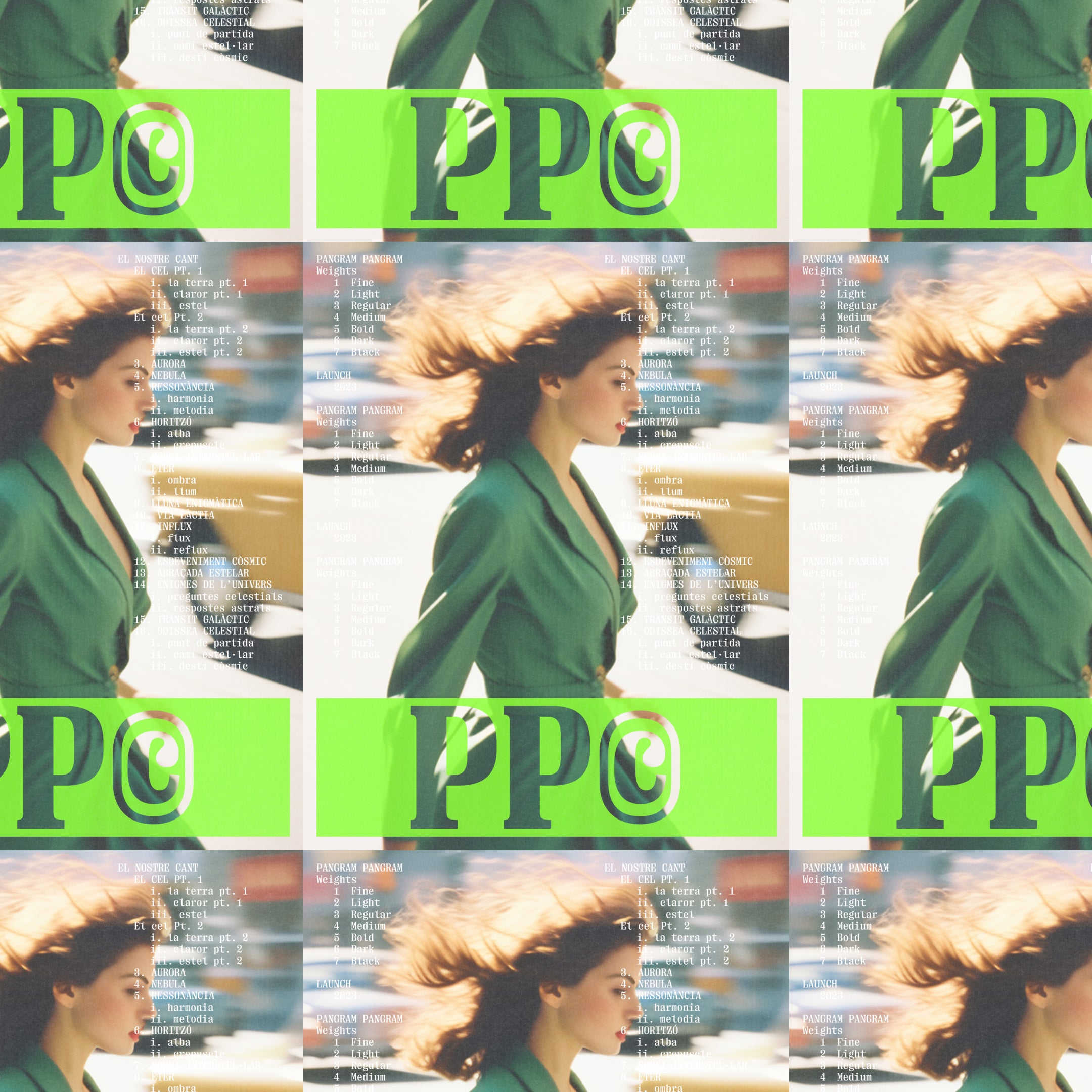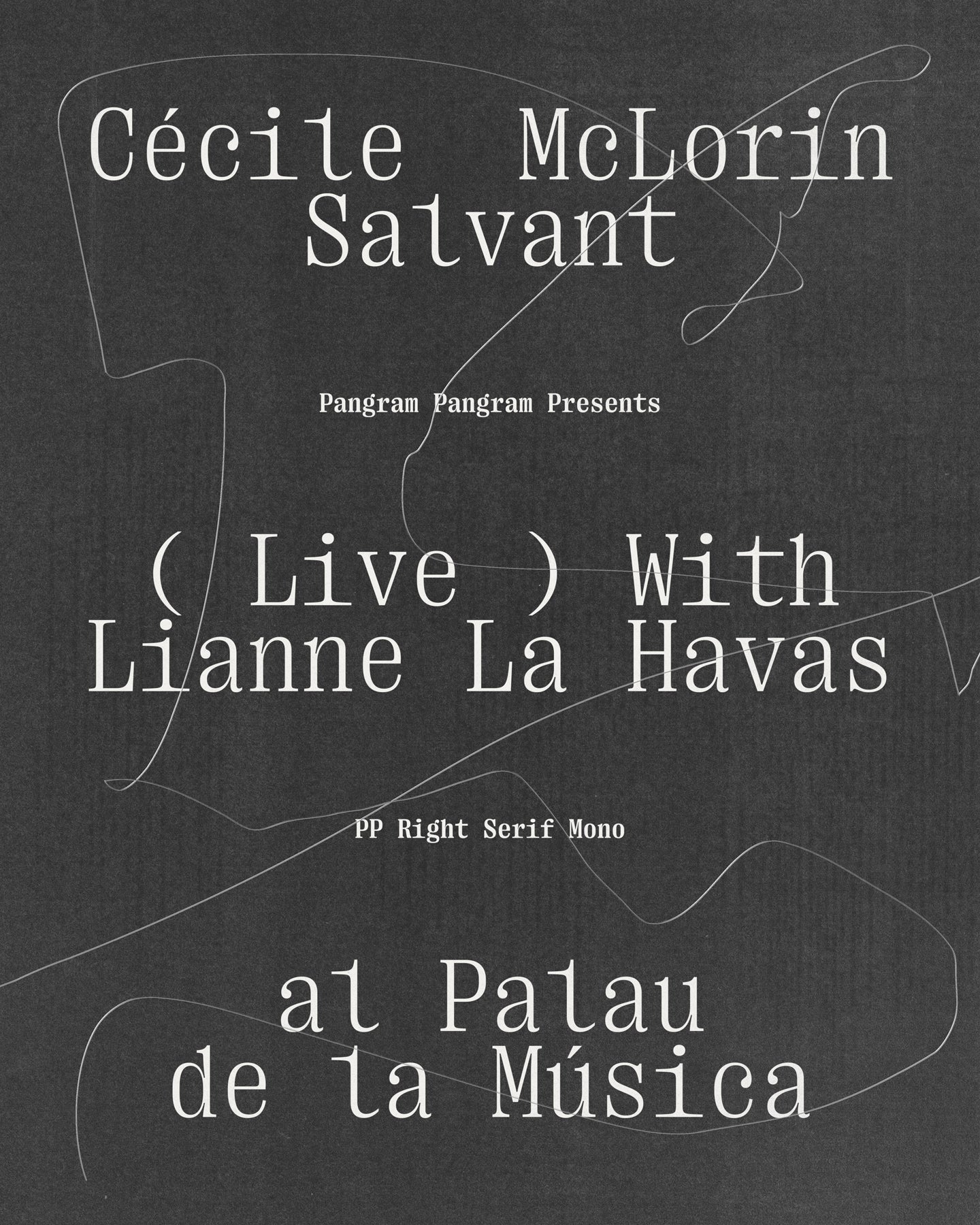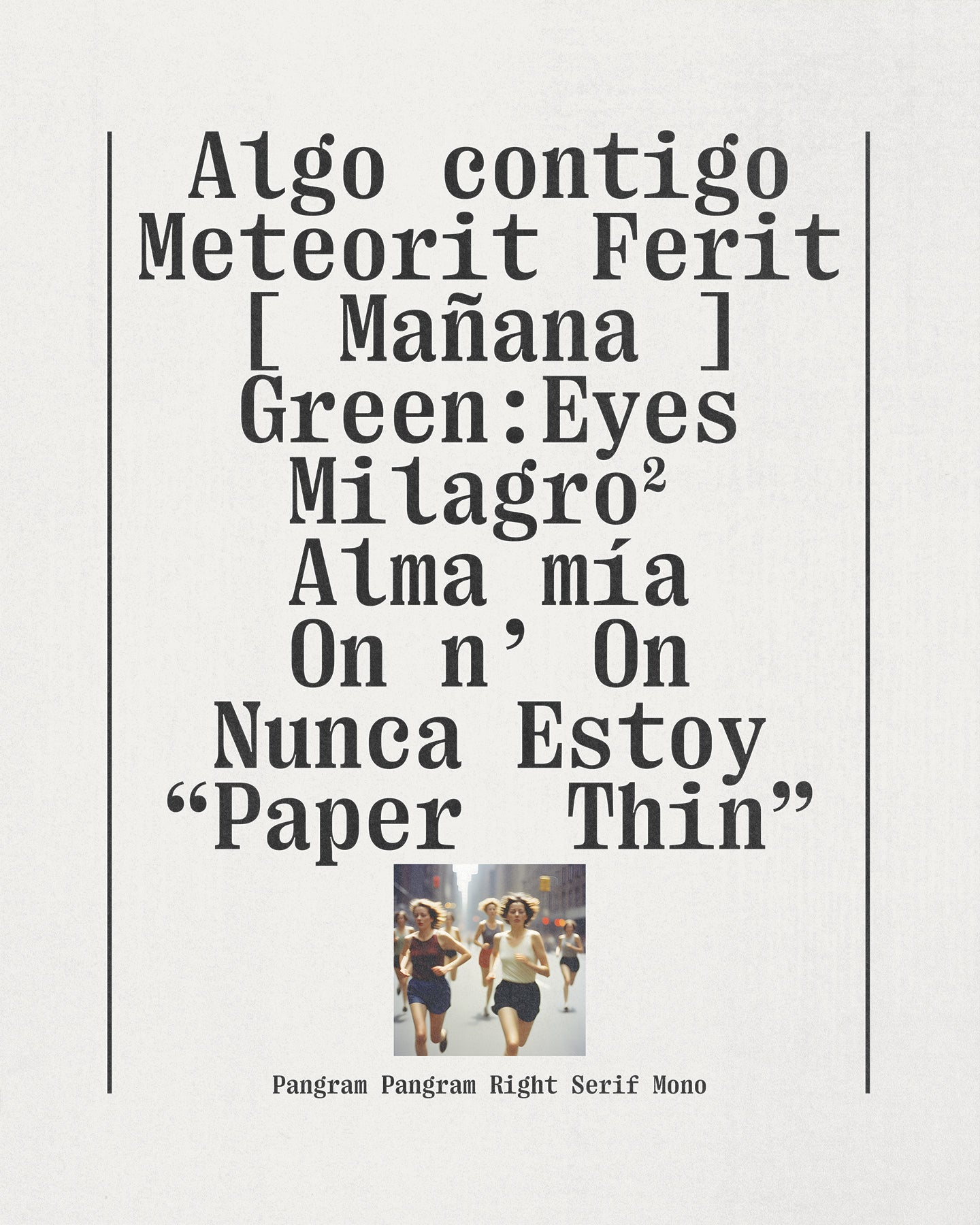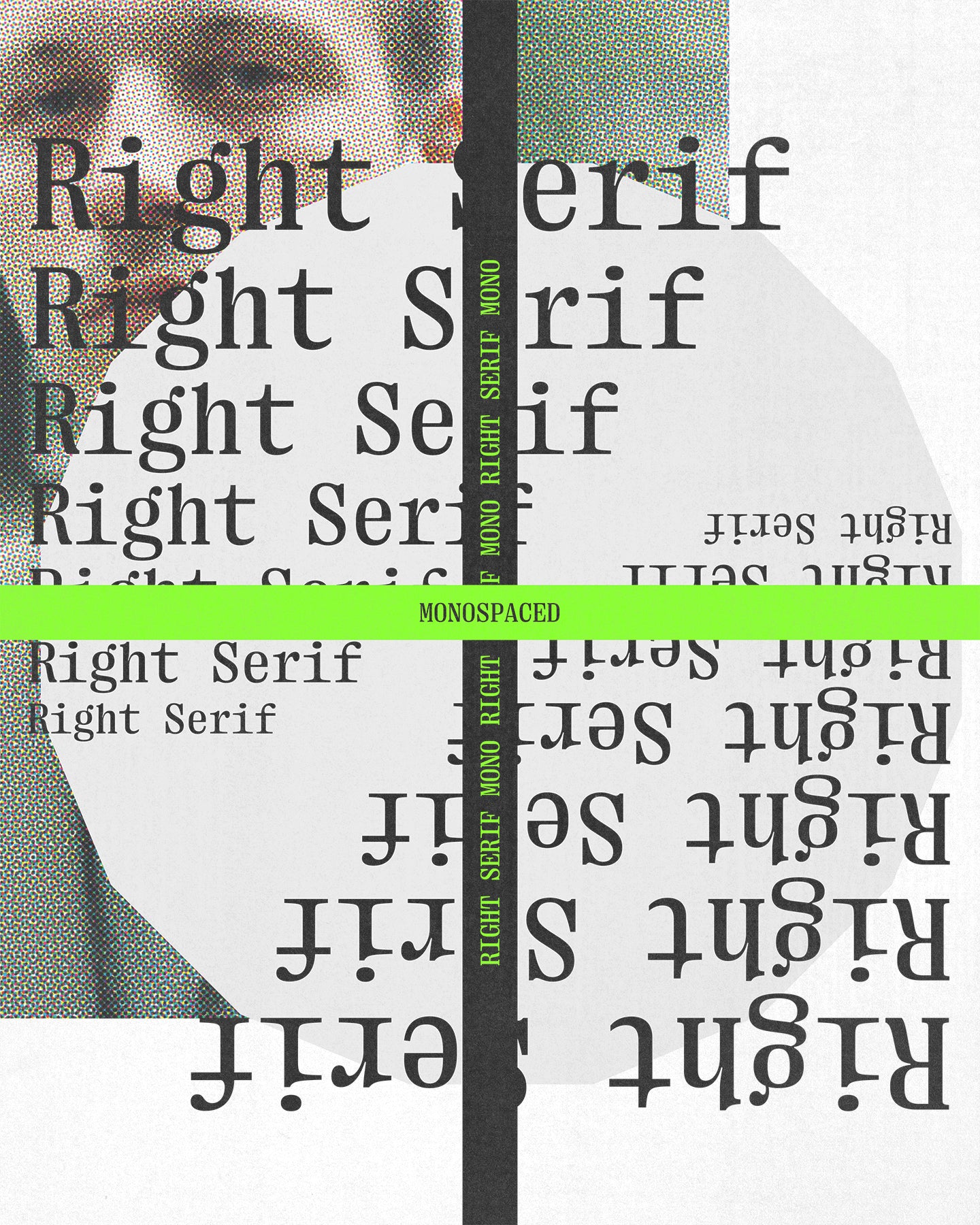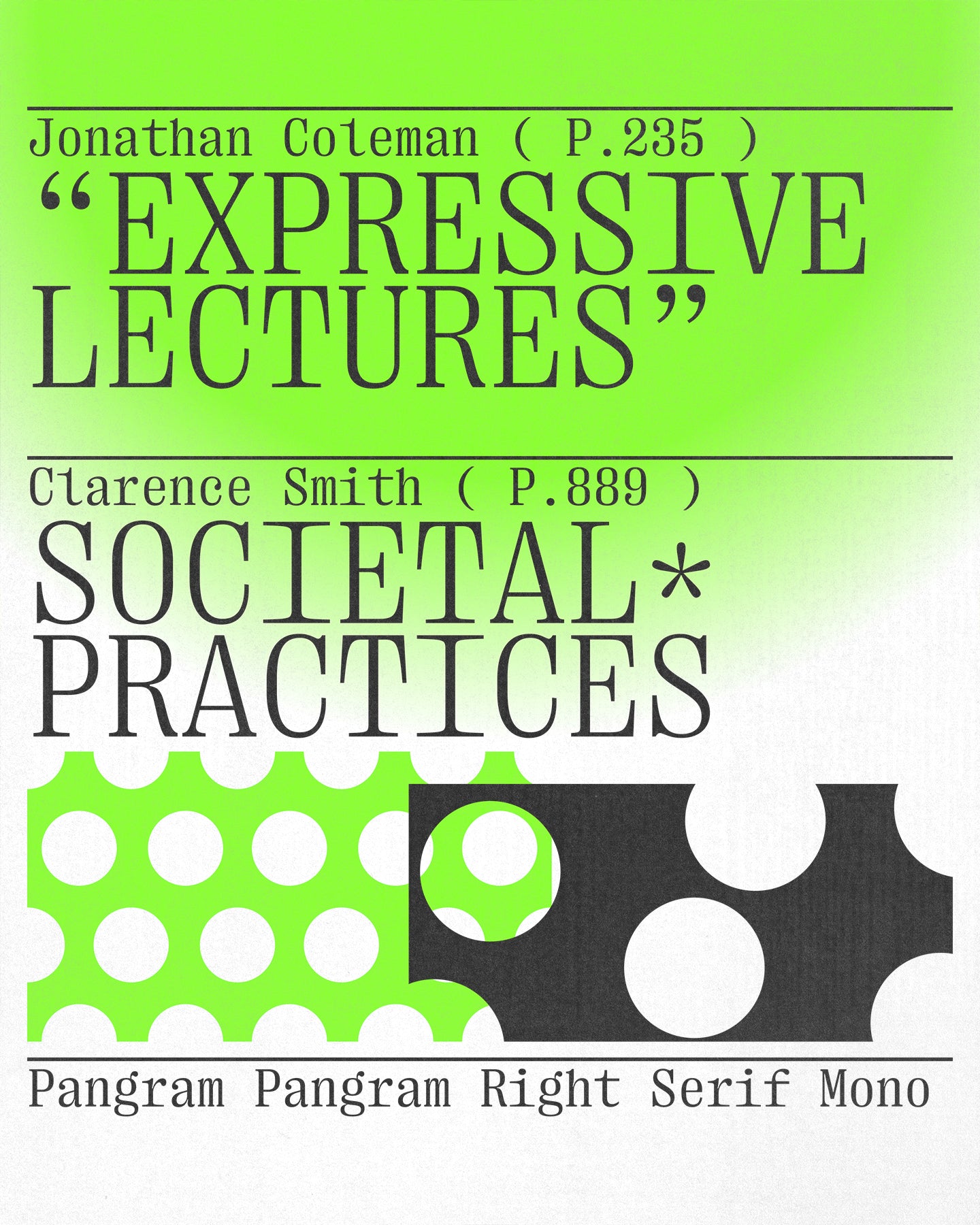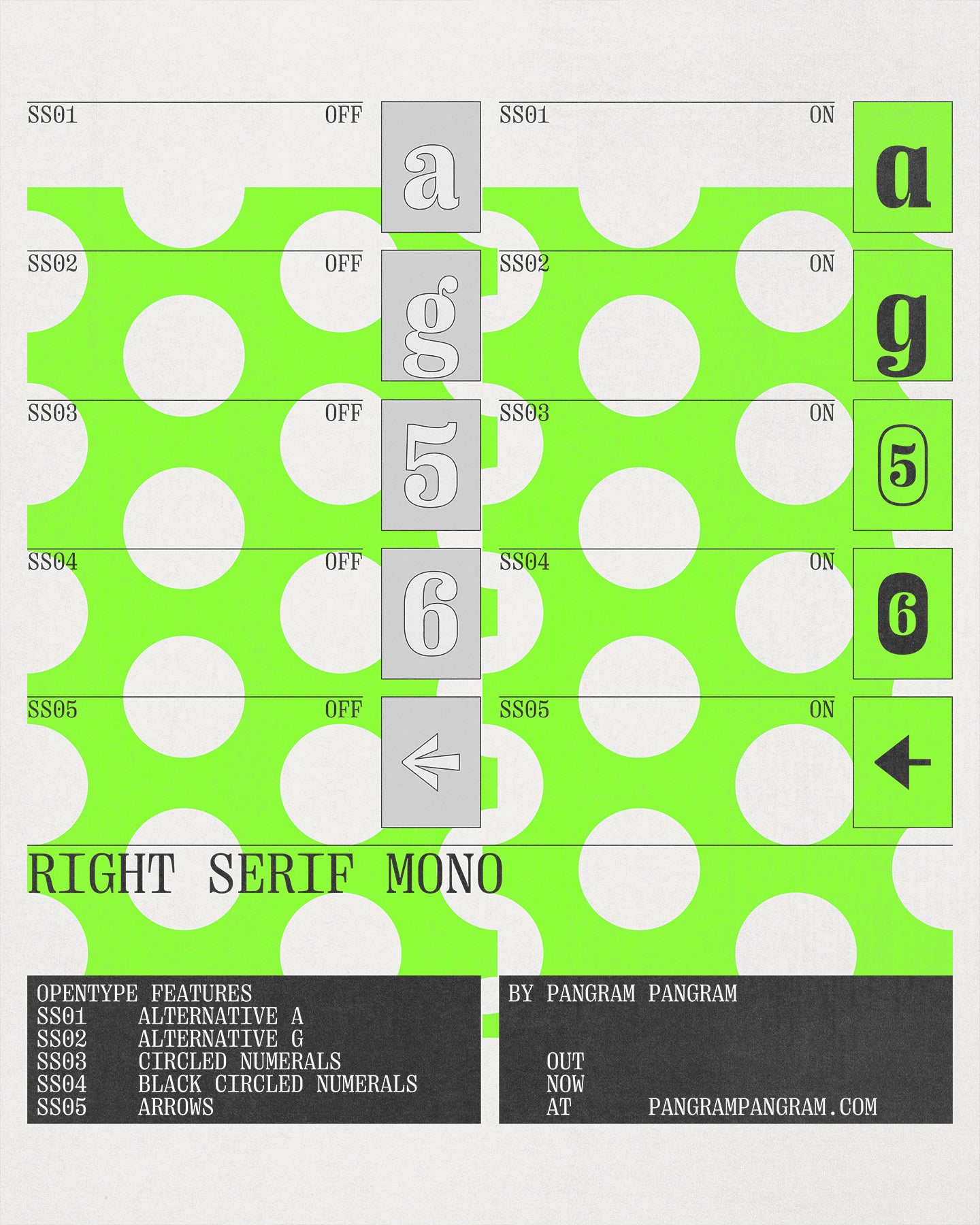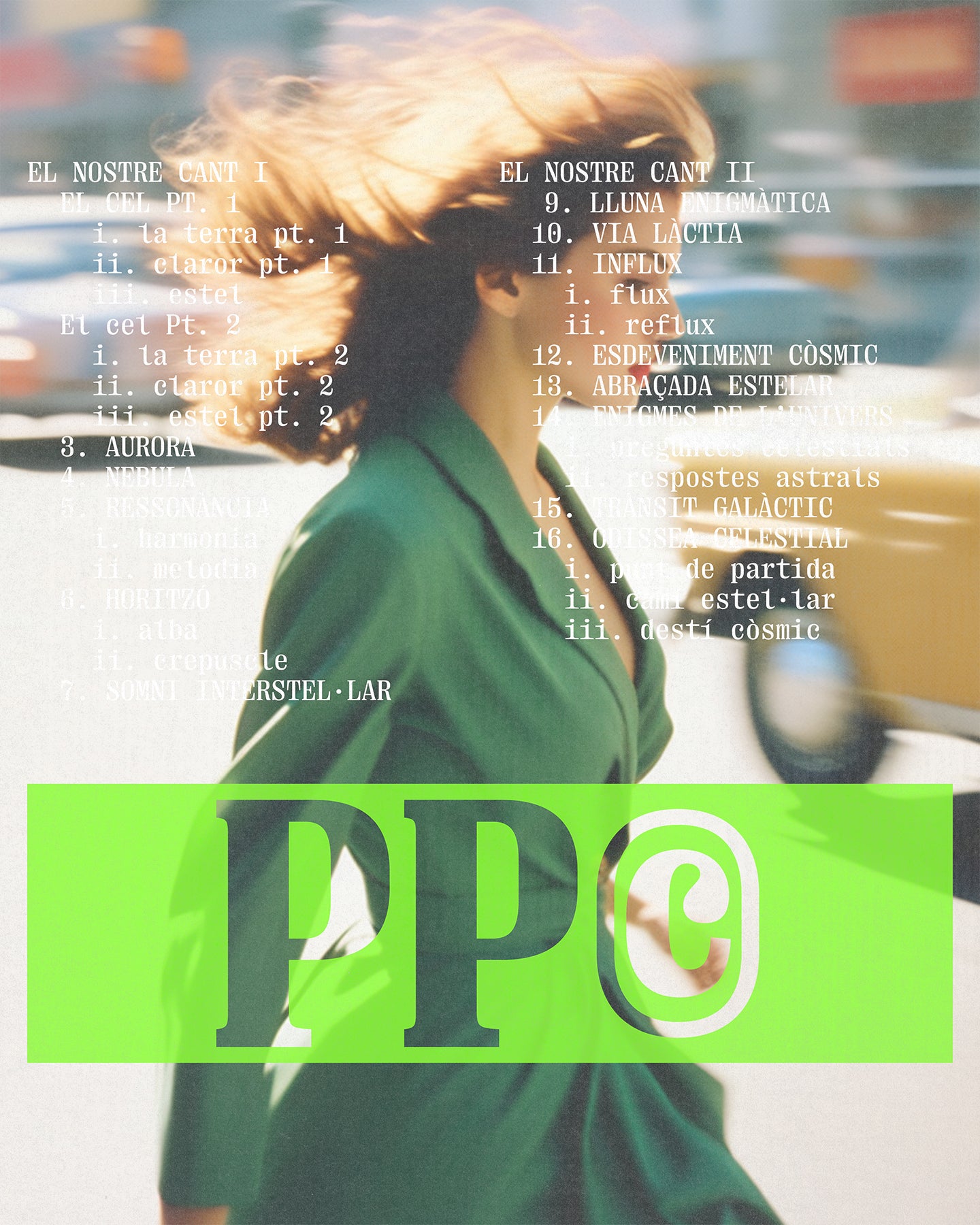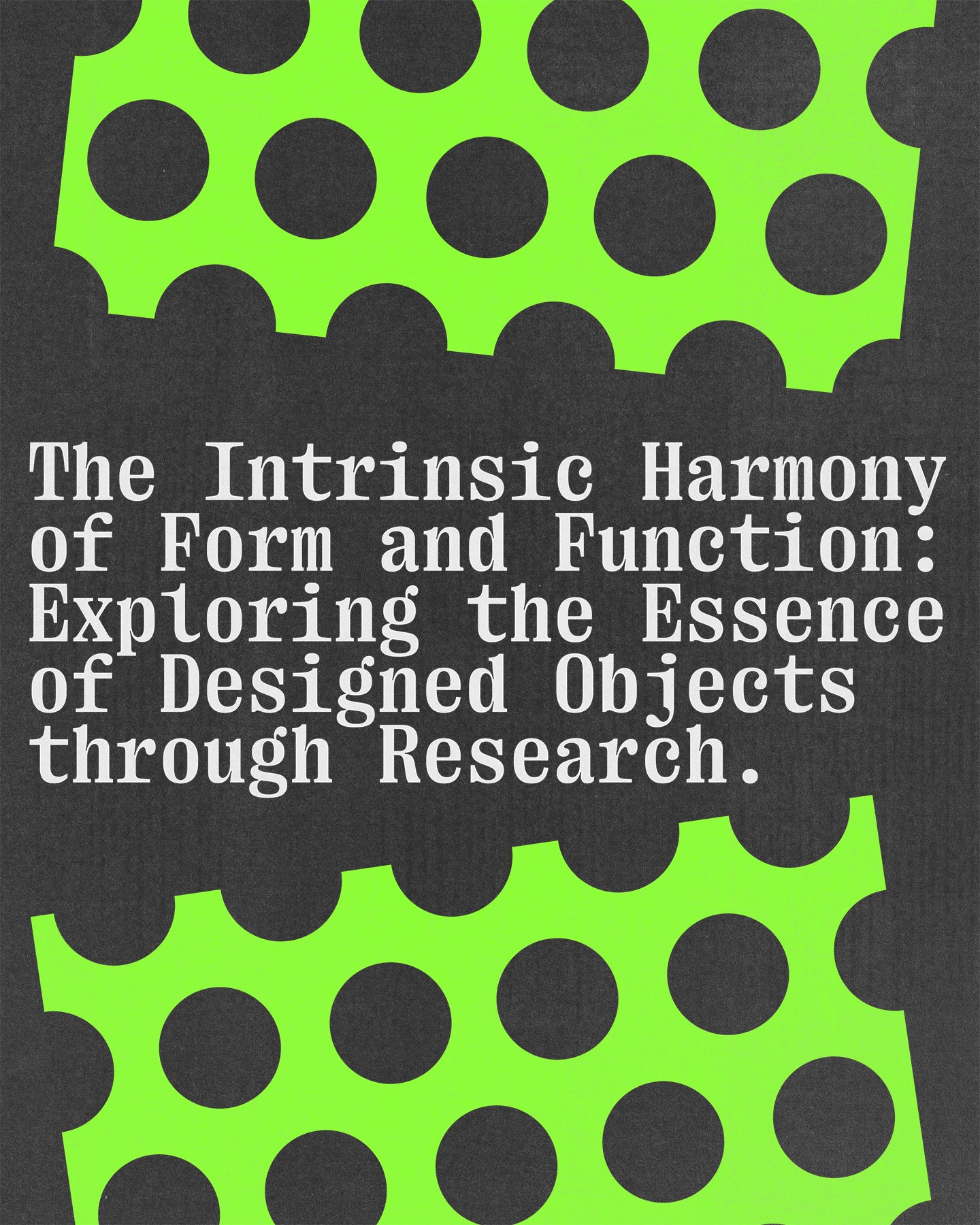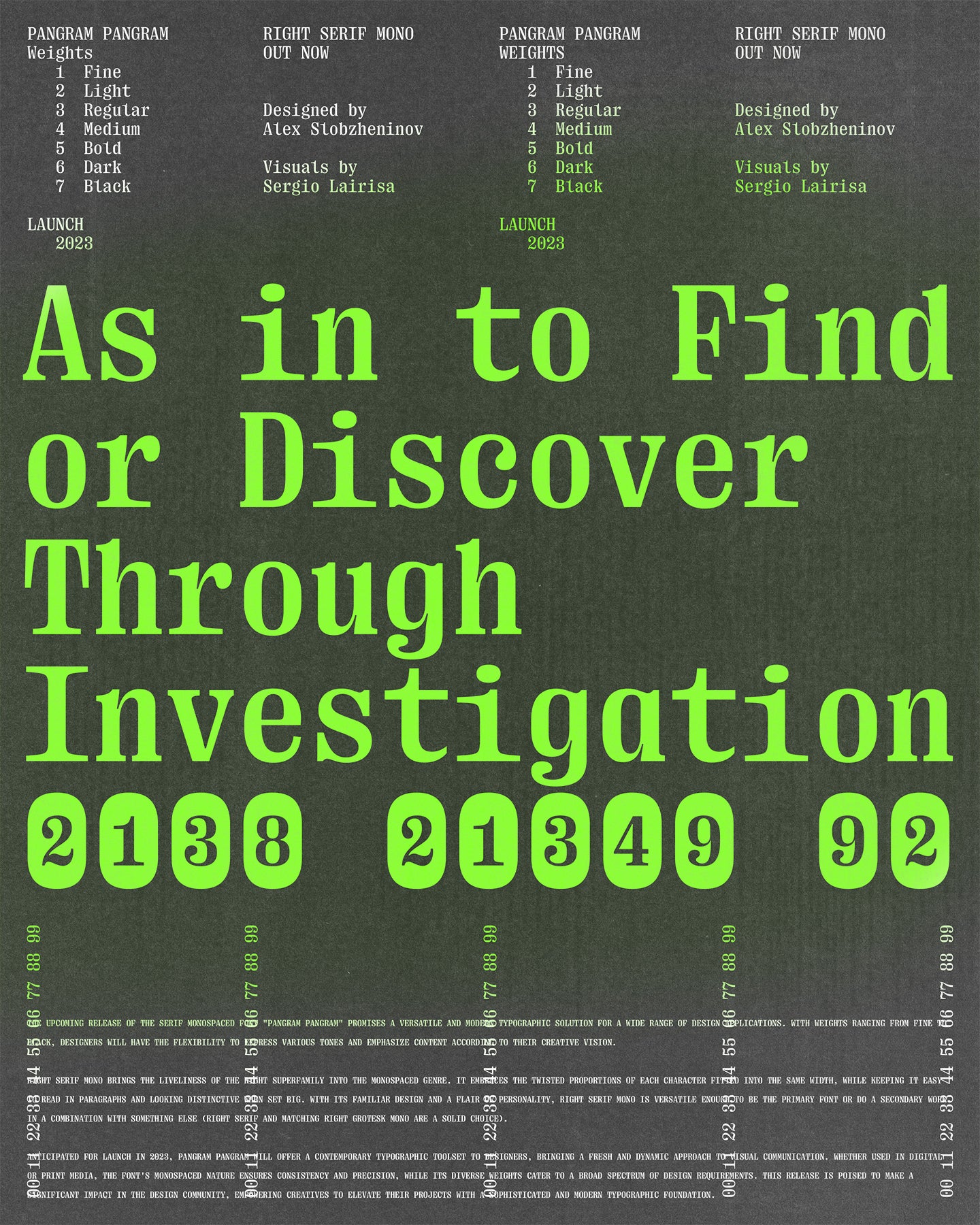
Right Serif Mono
Mono, with a twist.
Right Serif Mono
Right Serif Mono plays by the grid, but still breaks the rules.
Right Serif Mono
Right Serif Mono is what happens when a monospaced typeface decides it doesn’t have to be boring. It brings the charm and personality of the Right superfamily into the world of code-like uniformity—equal widths, sure—but with a liveliness that most monos can only dream of.
Right Serif Mono
This isn’t just another utilitarian mono with deadpan energy. Right Serif Mono celebrates the weirdness of fitting every letter into the same width, leaning into those quirky proportions without ever compromising readability. It’s clear and clean in paragraphs, and full of unexpected character when blown up for display use. Visually, it carries the bones of Right Serif, but adds a level of geometric discipline and oddball energy that gives it a unique vibe. Perfect for identity systems that need a bit of tech meets editorial, creative coding visuals, zines, infographics—or anywhere you want to look smart and stylish. And when it comes to pairing? It’s ready to play nice. Right Serif Mono can easily hold its own as a primary typeface, or sit in the cut as a secondary accent. Combine it with Right Serif or Right Grotesk Mono, and you’ve got a flexible type system with serious visual chemistry. Right Serif Mono: strict grid, soft heart. Built for code, editorial, and everything in between.
Right Serif Mono is variable
Right Mono Serif
With Italics
Right Serif Mono's Features
Alternate a
Alternate g
Circled Numerals
Black Circled Numerals
Arrow
Case sensitive forms
A monospace with the right twist.
Right Serif Mono brings the liveliness of the Right superfamily into the monospaced genre. It embraces the twisted proportions of each character fitted into the same width, while keeping it easy to read in paragraphs and looking distinctive when set big.
With its familiar design and a flair of personality, Right Serif Mono is versatile enough to be the primary font or do a secondary work in a combination with something else (Right Serif and matching Right Grotesk Mono are a solid choice).